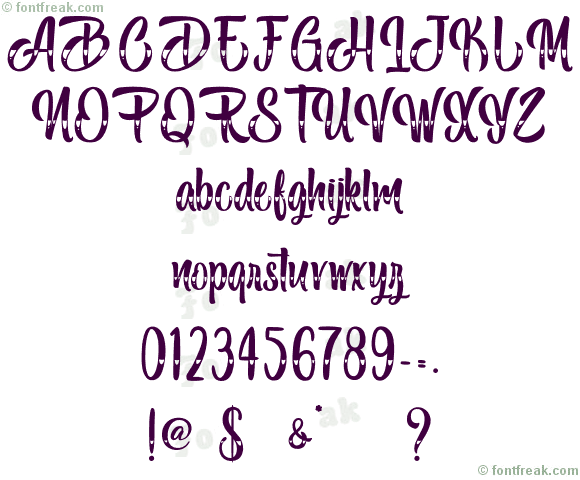
DelanGray-PersonalUse
About DelanGray-PersonalUse
DelanGray-PersonalUse is a striking script font designed by Suthi Srisopha, falling under the category of decorative typefaces. This font features a fluid, elegant style that exhibits a moderate stroke weight, presenting a balance between boldness and legibility. The contrasting elements in its design give it a dynamic look, while the graceful curves and unique flourishes add a touch of sophistication. The spacing is well-considered, ensuring that each character flows seamlessly into the next, making it ideal for various applications.
This versatile font has several excellent use cases, making it a valuable addition to any designer's toolkit. Its whimsical and artistic nature makes it perfect for wedding invitations, where it can convey romance and elegance. Additionally, it can be effectively utilized in restaurant menus, giving a personalized touch that invites diners to enjoy the experience. Movie posters can also benefit from the expressive character of DelanGray-PersonalUse, adding flair and attracting attention. Small business branding, particularly for artisanal products or creative services, can leverage this font to enhance their identity and appeal. Content creators looking to elevate their social media graphics or blog headers will find this font to be an excellent choice for creating visually appealing layouts.
What sets this font apart is its ability to blend artistic charm with practicality, making it suitable for both formal and casual settings. Its distinctive style is sure to leave a lasting impression, elevating any design project it graces.